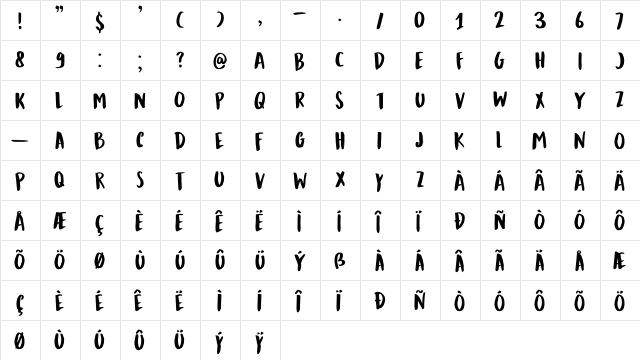
DK Mandarin Whispers Regular
| Foundry | David Kerkhoff |
| Designer | David Kerkhoff |
Design Context for DK Mandarin Whispers Typeface
DK Mandarin Whispers is a composed and adaptable typeface that performs quietly and consistently across a wide range of design contexts.